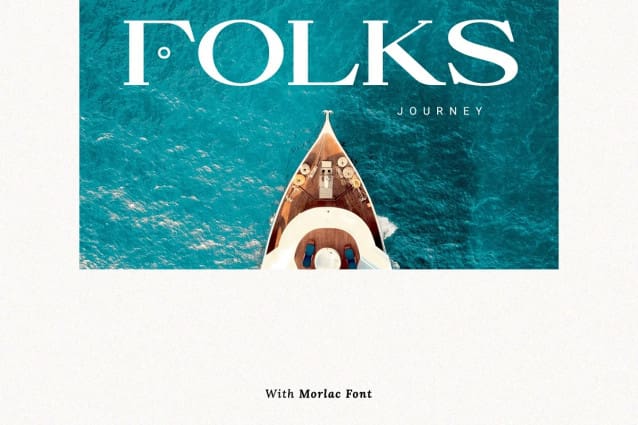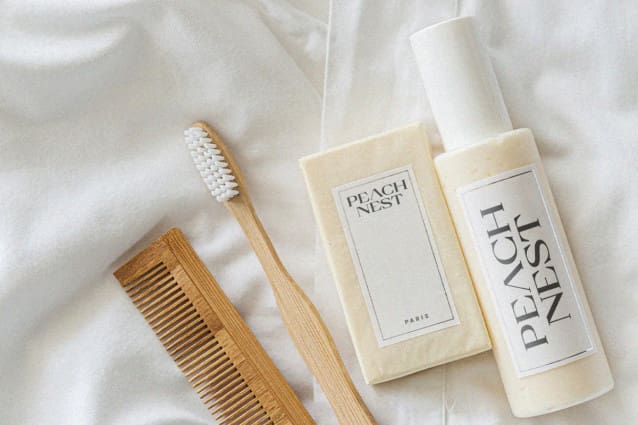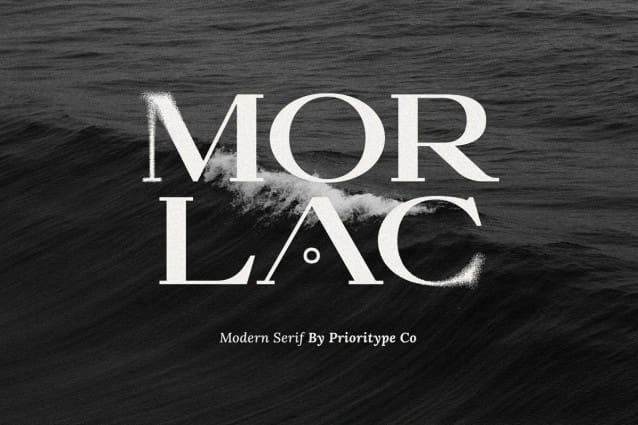
Morlac Font
Morlac Font – Modern Serif, a simple modern serif font that looks luxurious. This is an all caps font. But there are some differences in certain letters such as A, E, F, H and Q. It is suitable for branding designs, logos, headlines etc.